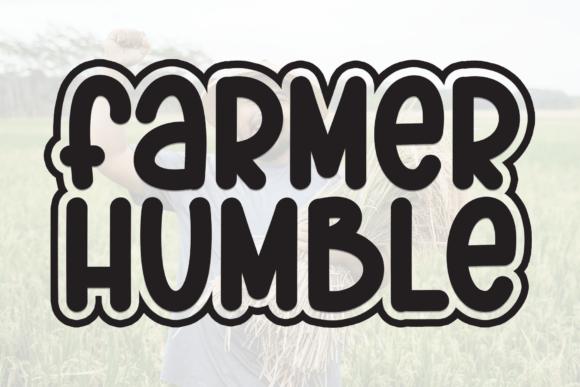
Farmer Humble Font: The Perfect Choice for Casual and Playful Designs
In the world of typography, fonts play a crucial role in conveying the tone and personality of a brand or design. When it comes to creating a fun and relaxed atmosphere, the right font can make all the difference. This is where Farmer Humble Font comes in – a neat and casual display font that radiates fun and relaxation. With its clean lines and easygoing vibe, Farmer Humble is perfect for summer posters, event flyers, and playful branding.
Key Features of Farmer Humble Font
- Clean Lines: Farmer Humble Font boasts clean and crisp lines that give it a fresh and modern look.
- Easygoing Vibe: The font exudes a carefree and laid-back feel, making it perfect for designs that require a playful touch.
- Cheerful: The font’s cheerful personality makes it ideal for creating fun and engaging designs.
- Versatile: Farmer Humble Font can be used for a wide range of design projects, from summer posters to event flyers and branding.
10 Creative Ways to Use Farmer Humble Font
- Summer Posters: Create eye-catching summer posters that scream fun and relaxation with Farmer Humble Font.
- Event Flyers: Use the font to design event flyers that convey a carefree and playful vibe.
- Playful Branding: Add a touch of whimsy to your brand’s identity with Farmer Humble Font.
- Beach-themed Designs: The font’s breezy feel makes it perfect for beach-themed designs, such as surfboard stickers or beachwear branding.
- Festival Posters: Create vibrant festival posters that showcase the font’s cheerful personality.
- Social Media Graphics: Use Farmer Humble Font to create engaging social media graphics that stand out from the crowd.
- Wedding Invitations: Add a touch of playfulness to wedding invitations and save-the-date cards with the font.
- Food and Beverage Branding: Farmer Humble Font is perfect for food and beverage branding that requires a fun and casual tone.
- Travel Brochures: Use the font to create travel brochures that convey a sense of adventure and relaxation.
- Kids’ Party Invitations: Create fun and colorful kids’ party invitations with Farmer Humble Font.
Typography Tips for Using Farmer Humble Font
When using Farmer Humble Font, keep the following typography tips in mind:
- Pair with contrasting fonts: Pair Farmer Humble Font with contrasting fonts to create visual interest and hierarchy.
- Experiment with colors: The font looks great in bold and bright colors, so don’t be afraid to experiment with different hues.
- Play with spacing: Adjust the spacing between letters and lines to create a more relaxed or playful feel.
- Use it as a statement font: Use Farmer Humble Font as a statement font to draw attention to a specific message or element.
Benefits of Using Farmer Humble Font
So, why choose Farmer Humble Font for your design projects? Here are some benefits:
- Unique personality: The font’s unique personality sets it apart from more traditional fonts.
- Highly versatile: Farmer Humble Font can be used for a wide range of design projects.
- Easy to read: The font’s clean lines and simple design make it easy to read.
- Fun and engaging: The font’s playful vibe makes it perfect for creating fun and engaging designs.
In conclusion, Farmer Humble Font is a fantastic choice for designers looking to add a touch of fun and relaxation to their designs. With its clean lines, easygoing vibe, and cheerful personality, it’s perfect for a wide range of design projects. Whether you’re creating summer posters, event flyers, or playful branding, Farmer Humble Font is sure to bring a breezy, laid-back feel to your designs.